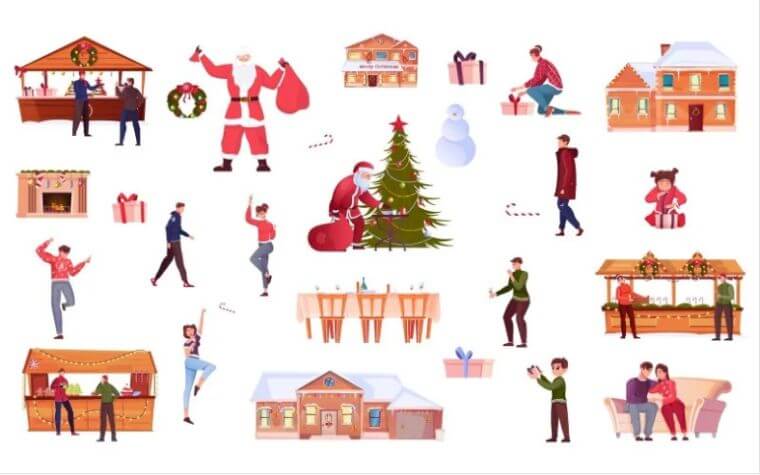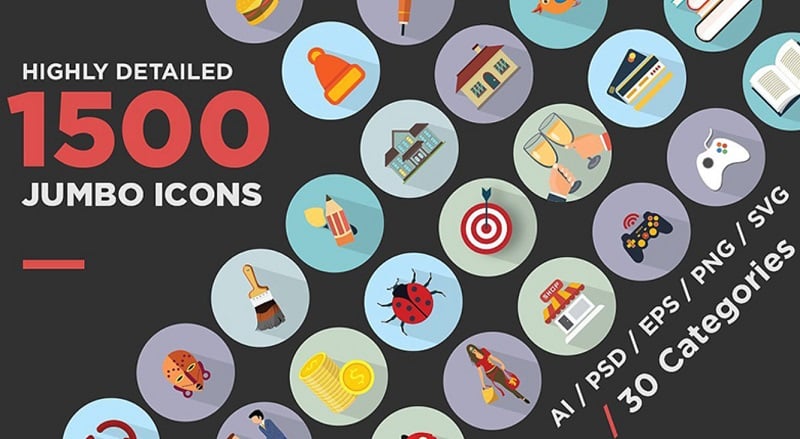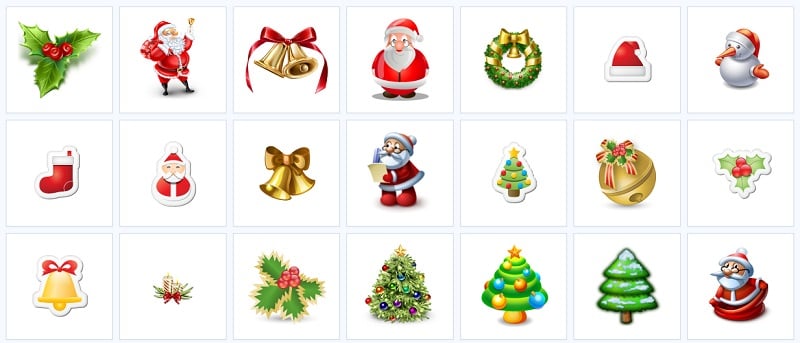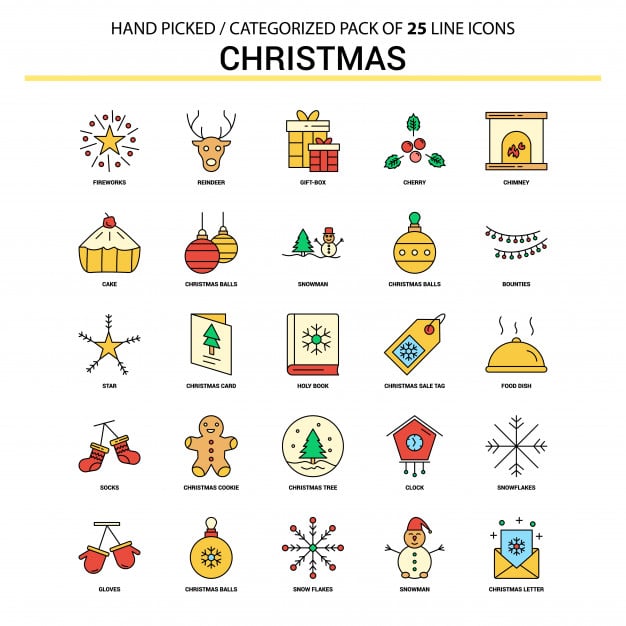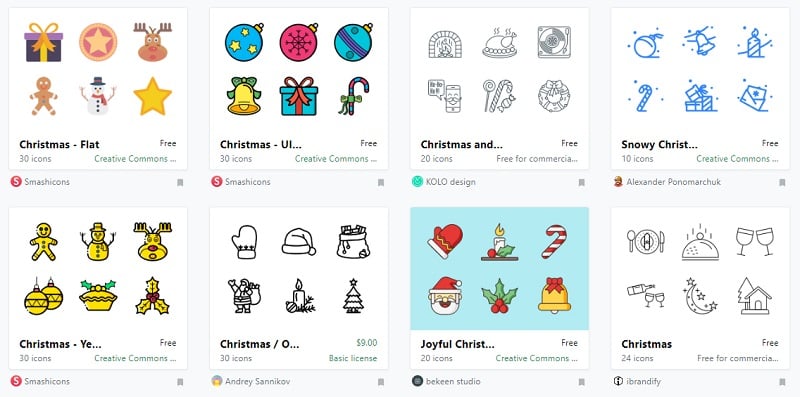
Icons
No designer will argue that icons are small, yet they are crucial for the efficiency of any app or web page. They may look simple… but how long does it take to reach this simplicity? It takes many long hours of time and effort to make them feel that way.
Icons follow you throughout your interaction with a product even if you don’t notice it. They are utterly essential for the success and speed of this interaction.
Here’s what icons can do for the user: help, support, engage, encourage, clarify, and simplify the process of interaction with the interface. Or vice versa; when used wrong, they confuse, annoy, disorient, and so on.
In the era of minimalist designs, icons gain even more prominence as they can replace text thus saving space on the page. The app becomes more functional without being overloaded.
Besides, icons make the interaction with the app faster as most people need less time to process the icon’s purpose than to read and understand the text.
In a word, icons successfully combine the functions of navigation and explanation while maintaining aesthetic elements of the visual representation of the product.
Outlizo – Multipurpose Merry Christmas Icon Pack in Outline Style
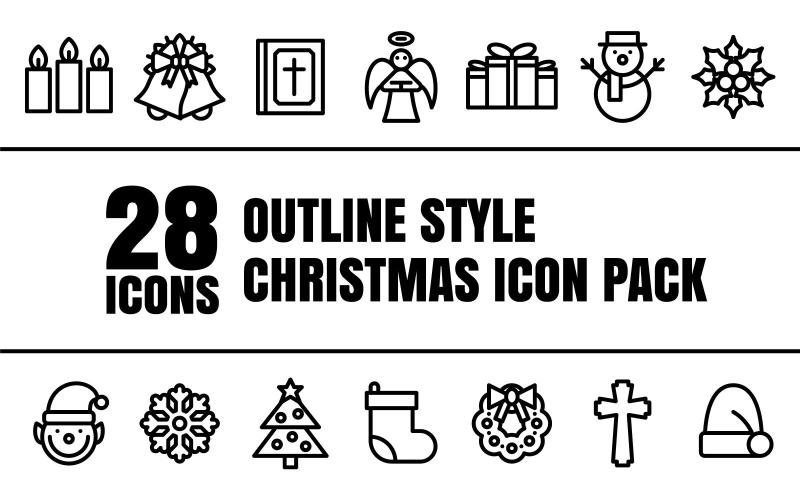
Introducing Outlizo, your go-to Multipurpose Merry Christmas Icon Pack in a sleek outline style. Crafted for versatility, these festive Christmas icons are perfect for software, websites, and applications. Easily editable and scalable without losing quality, this pack includes 28 vector icons (48x48px). Make your designs merry with Outlizo!
Pixliz – Multipurpose Merry Christmas Icon Pack in Filled Pixel Style
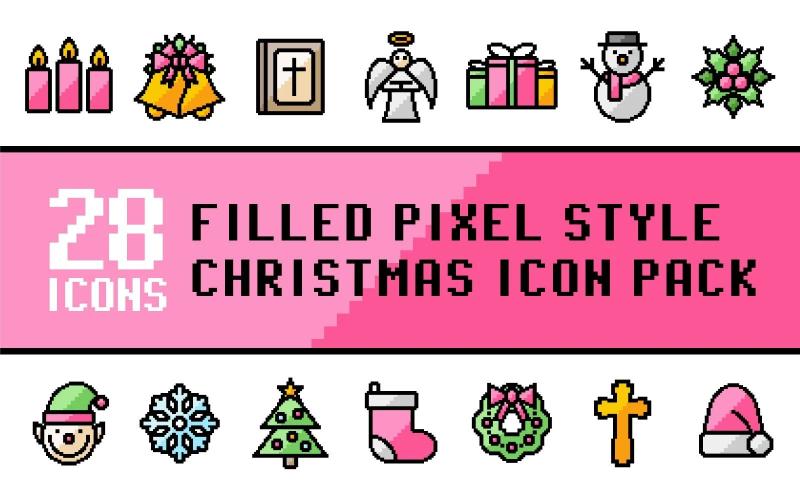
Introducing Pixliz, the ultimate Merry Christmas Icon Pack in a delightful filled pixel style! Elevate your designs, websites, and applications with 28 unique and editable vector icons, each capturing the festive spirit. Perfect for emails and more! Download now and infuse your projects with the joy of Christmas.
Drawniz – Multipurpose Merry Christmas Icon Pack in Filled Hand Drawn Style
Introducing Drawniz – a versatile Merry Christmas Icon Pack in a charming hand-drawn style. Elevate your designs with 28 editable SVG icons (48x48px), perfect for websites, blogs, applications, and more. Explore the festive spirit effortlessly with this Dafont Christmas Icons font. Check out the included PDF Readme file for a seamless experience.
Outlizo Bundle – Collection of Multipurpose Icon Packs in Outline Style
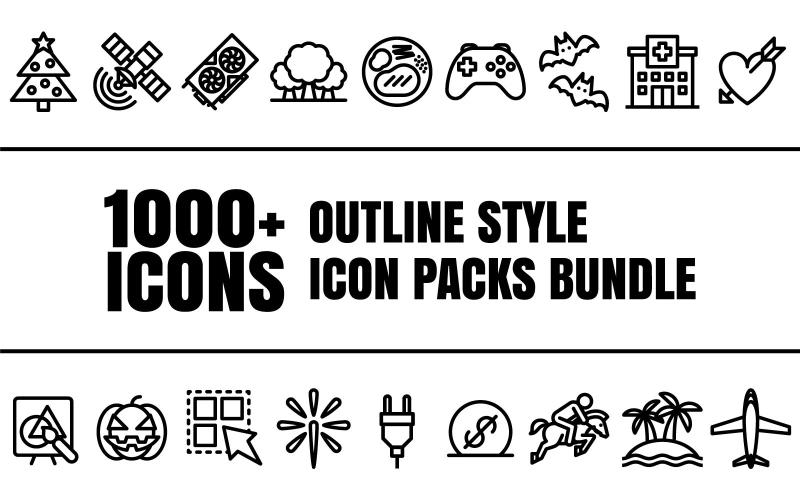
Discover the Outlizo Bundle – a treasure trove of 1000+ multipurpose outline icons perfect for software, design, websites, and more. From festive Christmas icons to interactive actions, each vector icon is versatile and resizable, ensuring seamless integration into your projects. Spice up your designs with this diverse collection for a touch of holiday spirit and beyond!
Outliz Bundle – Collection of Multipurpose Icon Packs in Filled Outline Style
Introducing the Outliz Bundle – your go-to for versatile icon packs! With over 1000 editable, resizable icons in a filled outline style, this collection covers Art, Christmas, Health, and more. Perfect for websites, apps, and design projects. Elevate your visuals with Outliz, where creativity meets functionality.
Christmas Icon Set Template
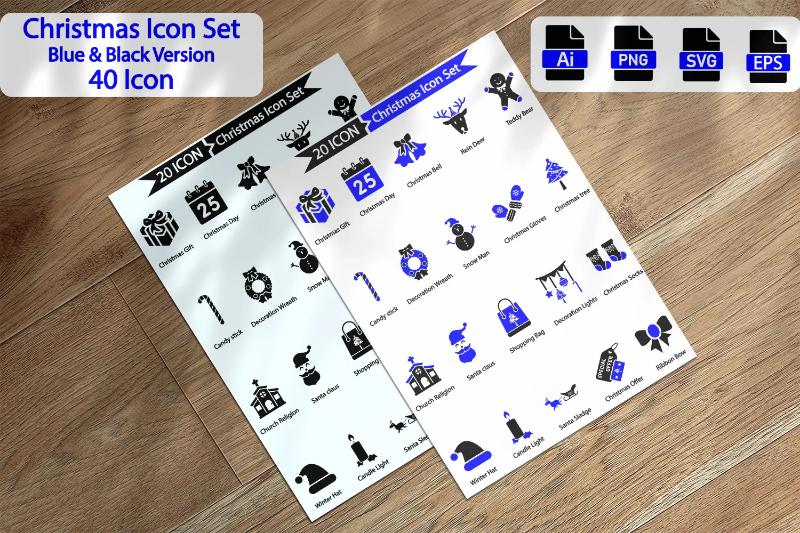
Introducing our stunning Mies Christmas Icons set, a meticulously crafted collection of 40 festive icons perfect for elevating your designs. Ideal for websites, presentations, and more, this set includes two versions in vibrant blue and classic black. With fully editable AI files, EPS, SVG, and transparent PNG formats, your creative possibilities are limitless. Spread holiday cheer in every project!
Christmas Line Icon Set Template
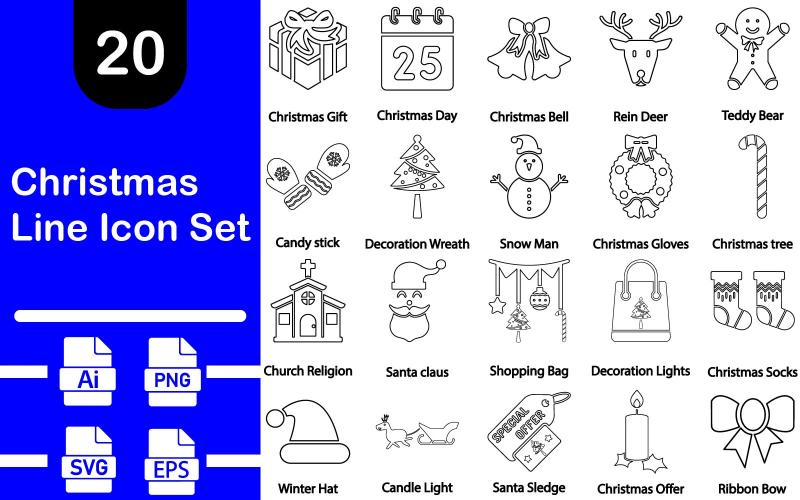
Introducing our festive treasure trove – a meticulously crafted 20 Christmas Line Icon Set. Elevate your designs with these elegant black icons, perfect for websites, print, presentations, and more. Each icon is a fully editable 100% Vector AI file, with EPS and SVG versions for flexibility. Spread holiday cheer effortlessly with this delightful collection!
Join the TemplateMonster marketplace and go through a few steps to become a part of the community. Create and verify your account, upload your work, and wait for the TemplateMonster experts’ approval. Once approved, you are ready to get the first sales.
Stick to the following trends in icon design:
Linear icons with colored shadows.
Abstract icon shapes.
Primary colors are bold, bright, and attractive choices for small design elements.
Icons on the background of other icons.
Two-color icons.